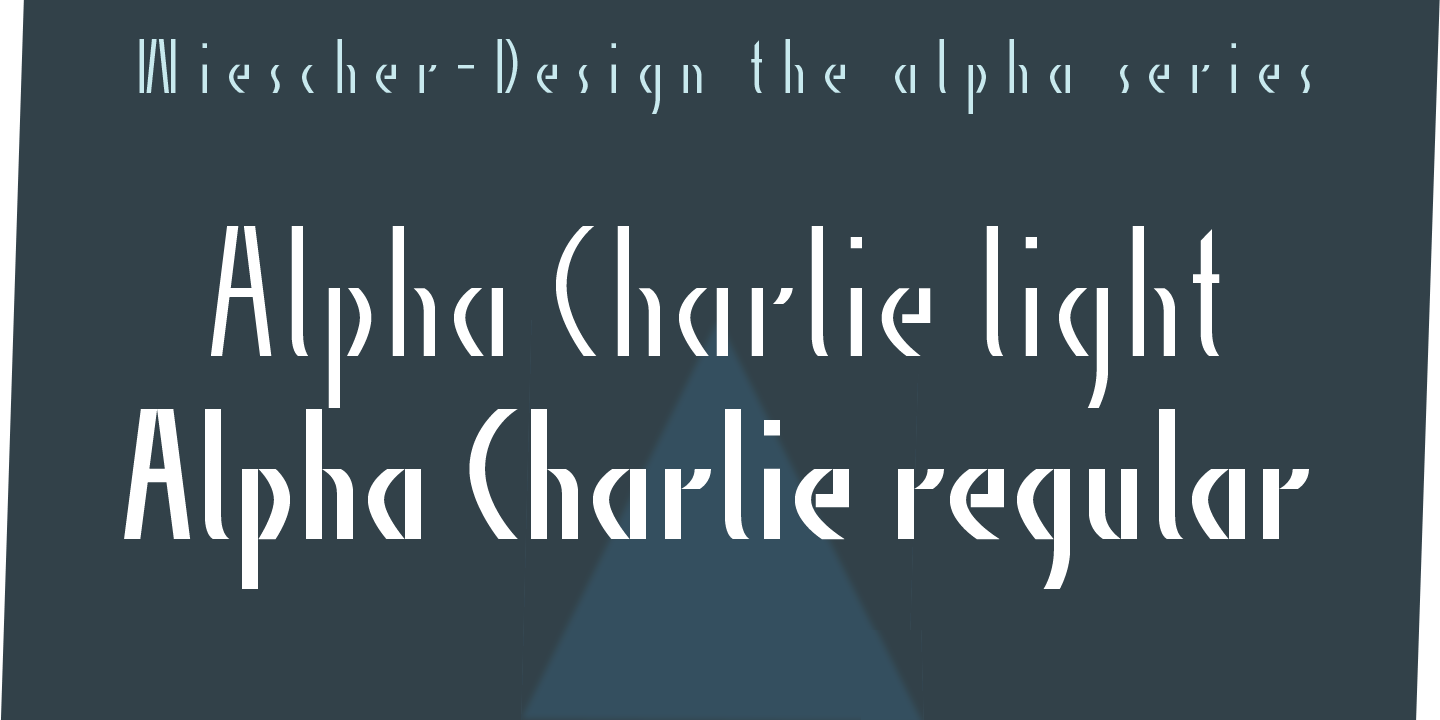
Alpha Charlie Font is a bold and authoritative typeface, perfect for designs that aim to convey a sense of military precision, aviation, or a rugged, disciplined aesthetic. Its often sturdy, blocky forms, or stencil-inspired cuts, evoke classic military stenciling or technical specifications, making it an excellent choice for military and defense branding, aviation-themed designs, action movie titles, and survival gear packaging. Imagine it gracing the side of a cargo plane, providing an unyielding visual for a tactical gear company, or adding a dominant presence to safety instructions in an industrial setting. This font is also superb for video game titles in the FPS genre, documentaries about armed forces, and any project where a clear, powerful, and visually commanding identity is key. It doesn't just display text; it signals precision and unwavering resolve.
What makes Alpha Charlie Font so exciting is its immediate ability to communicate strength, order, and a sense of utilitarian efficiency. Its inherently robust design ensures that any message it conveys stands out and leaves a lasting impression, creating a visual impact that is impossible to ignore. This distinctive characteristic makes it a fantastic choice for designers looking to cut through visual clutter and make an undeniable statement. It’s a font that speaks with an uncompromising voice, making it ideal for brands and content creators who want to convey resilience, authority, and a powerful, no-frills aesthetic. Its commanding appeal can make any headline or slogan feel more significant and visually compelling.
The Alpha Charlie Font family typically offers a range of weights that emphasize its core strength and utility, providing comprehensive design flexibility within its powerful aesthetic. While it might not have the subtle stylistic variations of more decorative fonts, its utility often lies in its diverse stroke thicknesses and their inherent impact. You can generally expect to find essential members such as:
Alpha Charlie Regular (the primary strong, often blocky style)
Alpha Charlie Bold (for an even more dominant presence)
Alpha Charlie Heavy (the heaviest option for maximum impact)
Alpha Charlie Stencil (if it features a stencil cut for an authentic military look)
Alpha Charlie Outline (for a strong, empty effect)
Alpha Charlie Distressed (if a weathered or grunge version is available)
These various weights and styles empower designers to create effective visual hierarchies, emphasize important information, and maintain a consistent, powerful, and commanding look throughout all design assets. The opportunity to utilize Alpha Charlie Font Free Download is an excellent way to experience its unique strength and impactful presence for your personal design ventures.